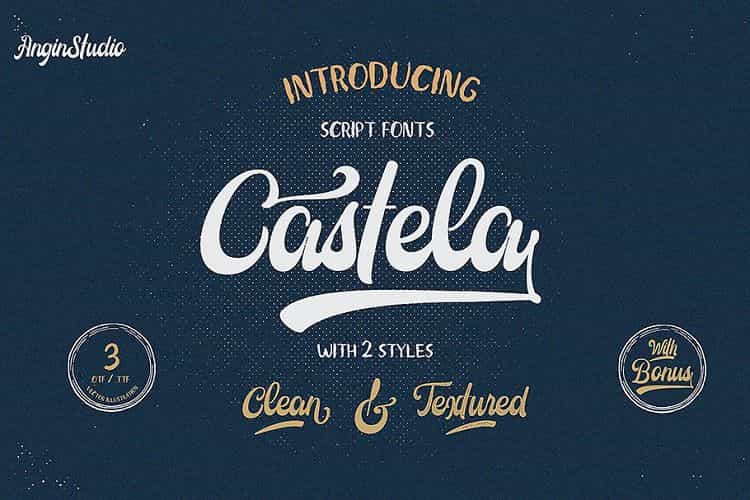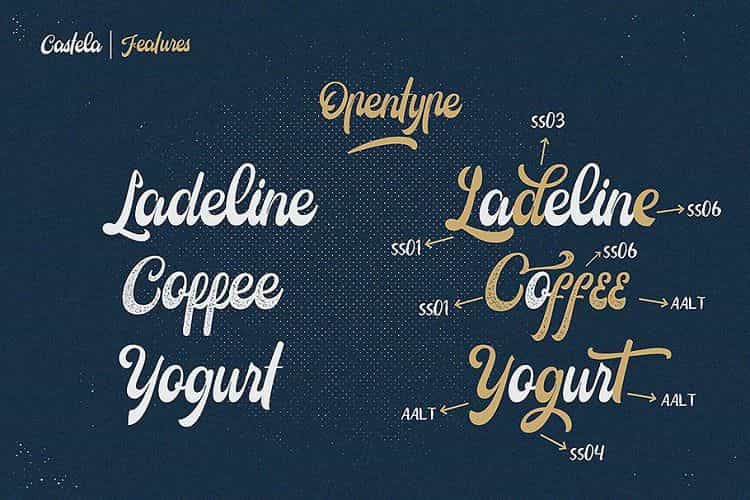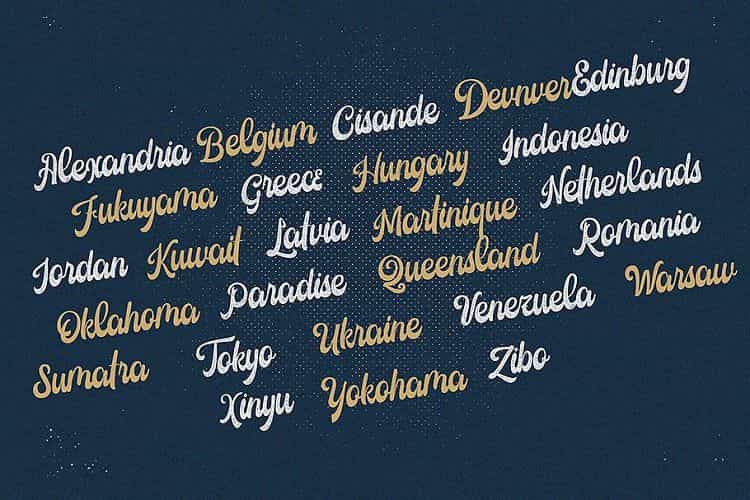
Discover Castela Script Demo Font, part of the Brush collection—a versatile and unique font perfect for adding a personal touch to your projects. Download it for free and enjoy crafting designs with style, from invitations to social media posts. This font is available exclusively for personal use, giving you the freedom to create without limits. Unlock your creativity with Castela Script Demo Font today!
Castela Font– This font is truly hand-drawn and it gives a real personal touch to your projects. You can make the perfect and individual design. Castela Script Demo Font is a script font that has a fluffy look and it was created inspired by both modern and vintage packaging. Castela is made meticulously to have an appearance that you will be drawn into. It is an ideal font for different applications like editorial design, branding, art quote, book / cover title…